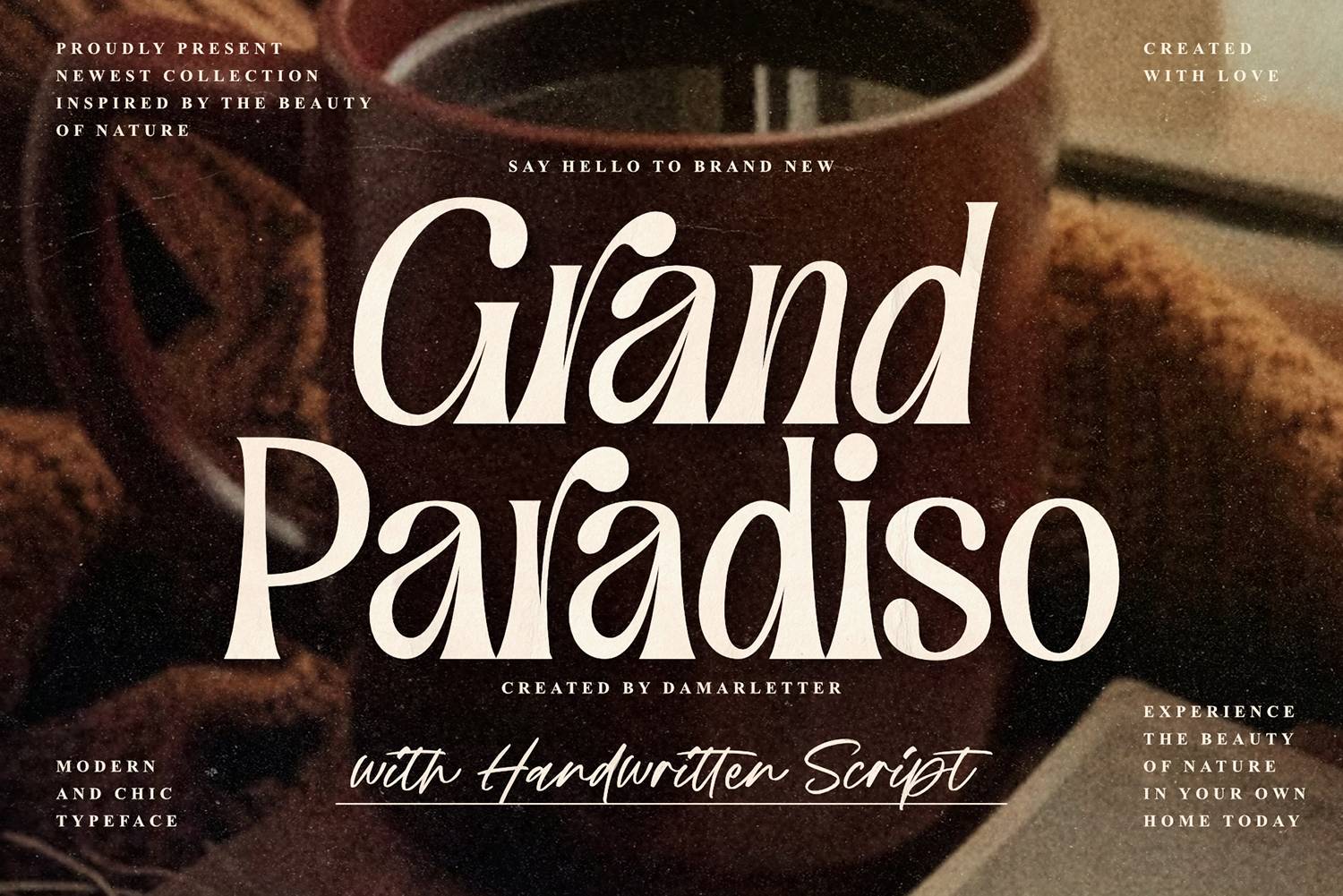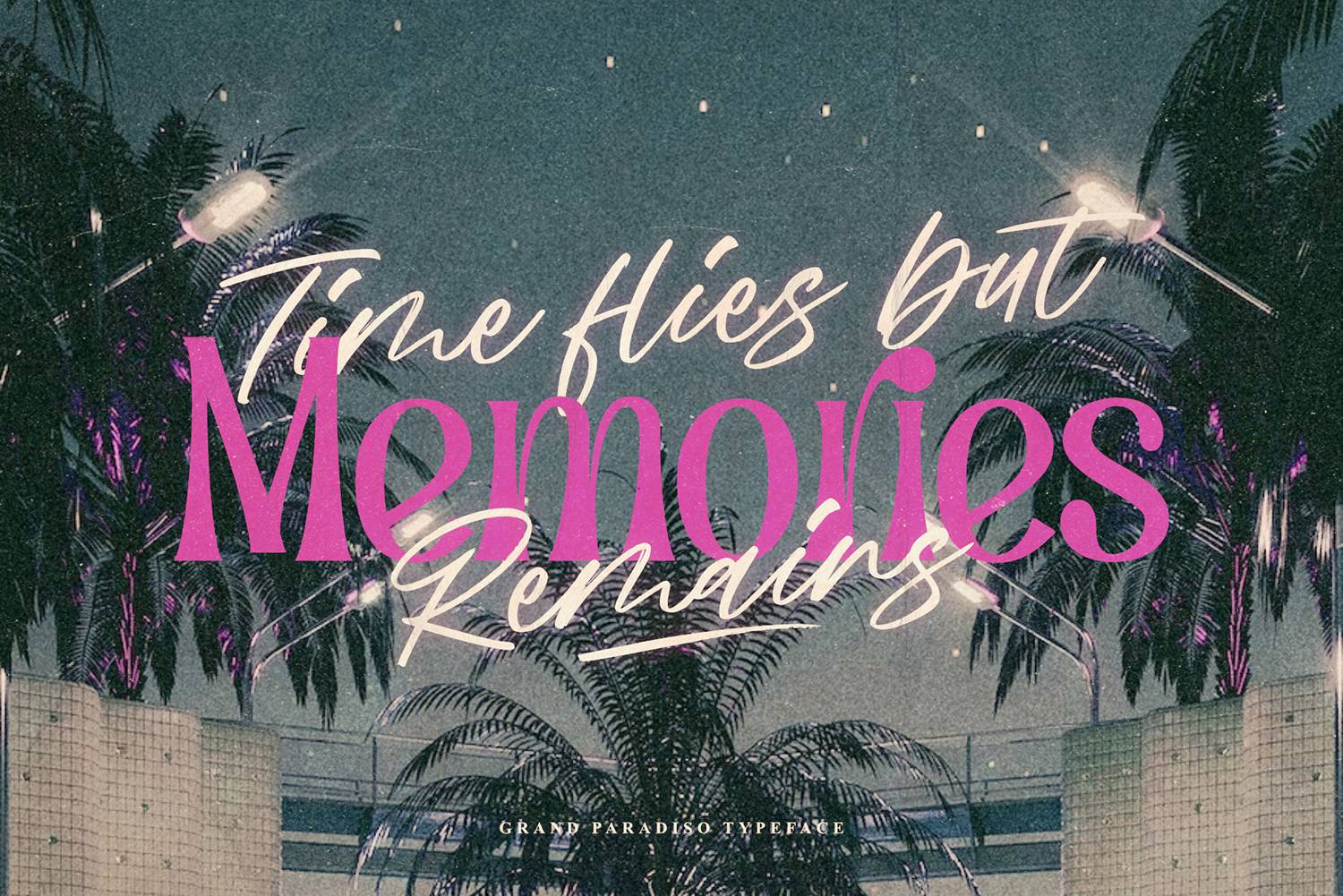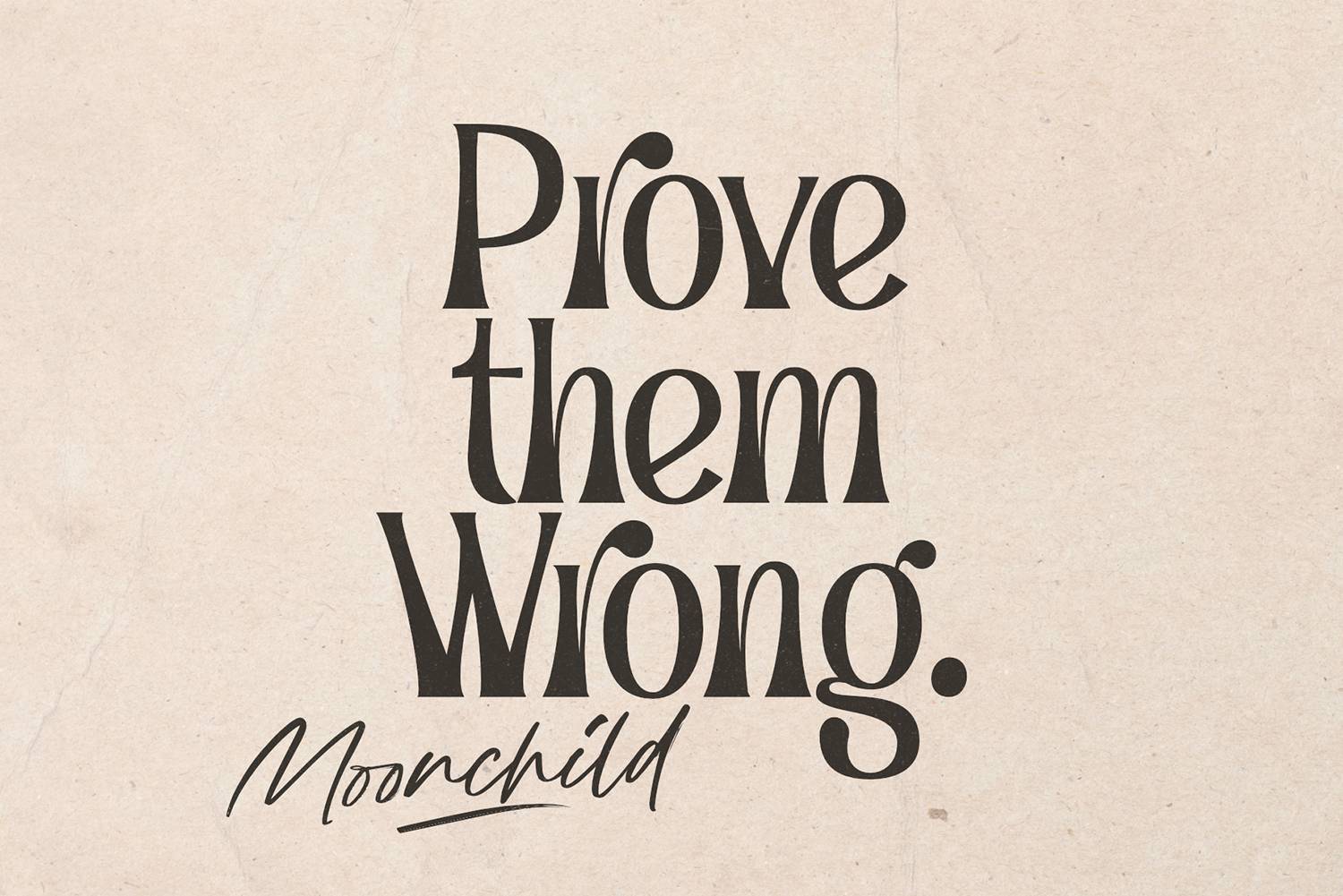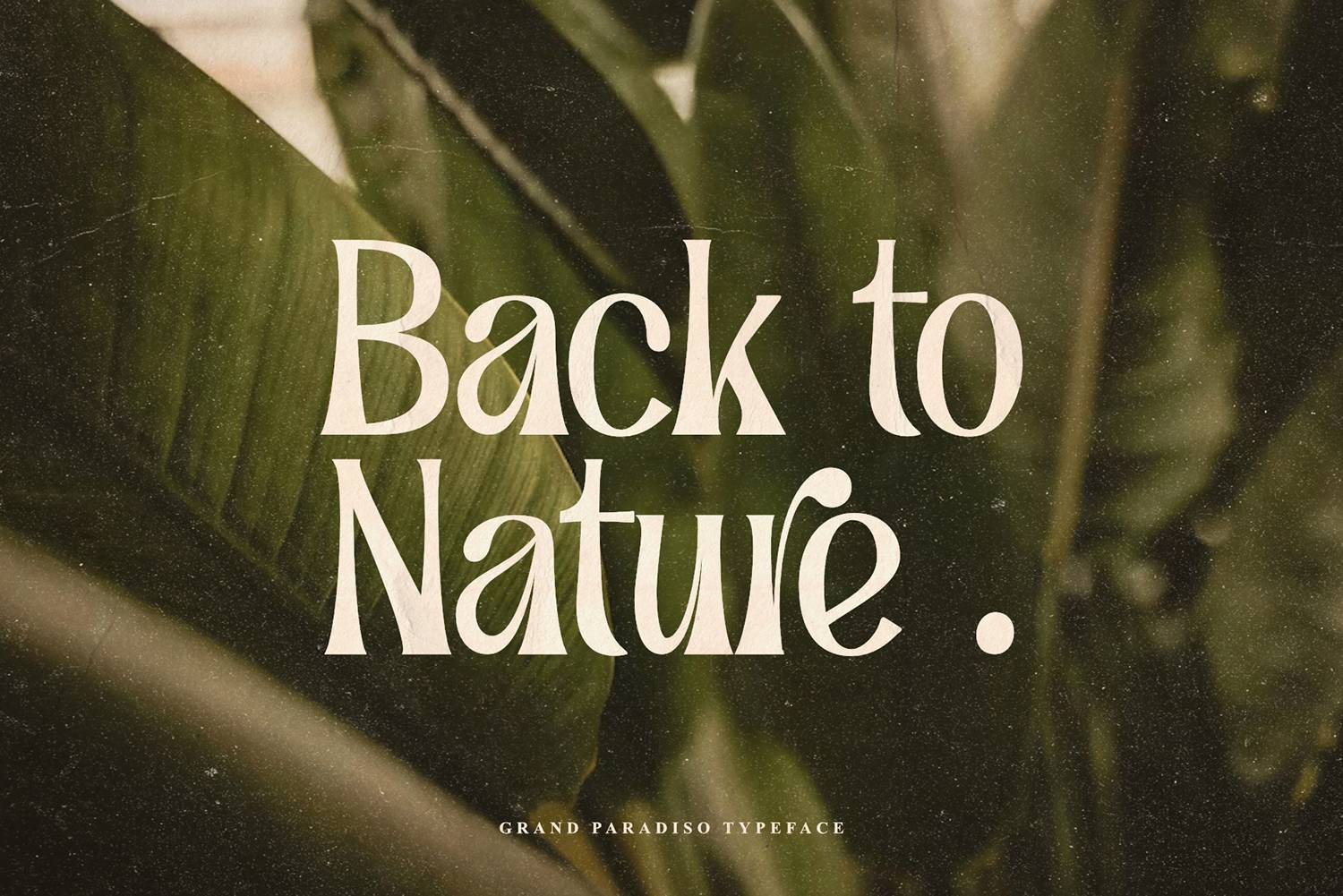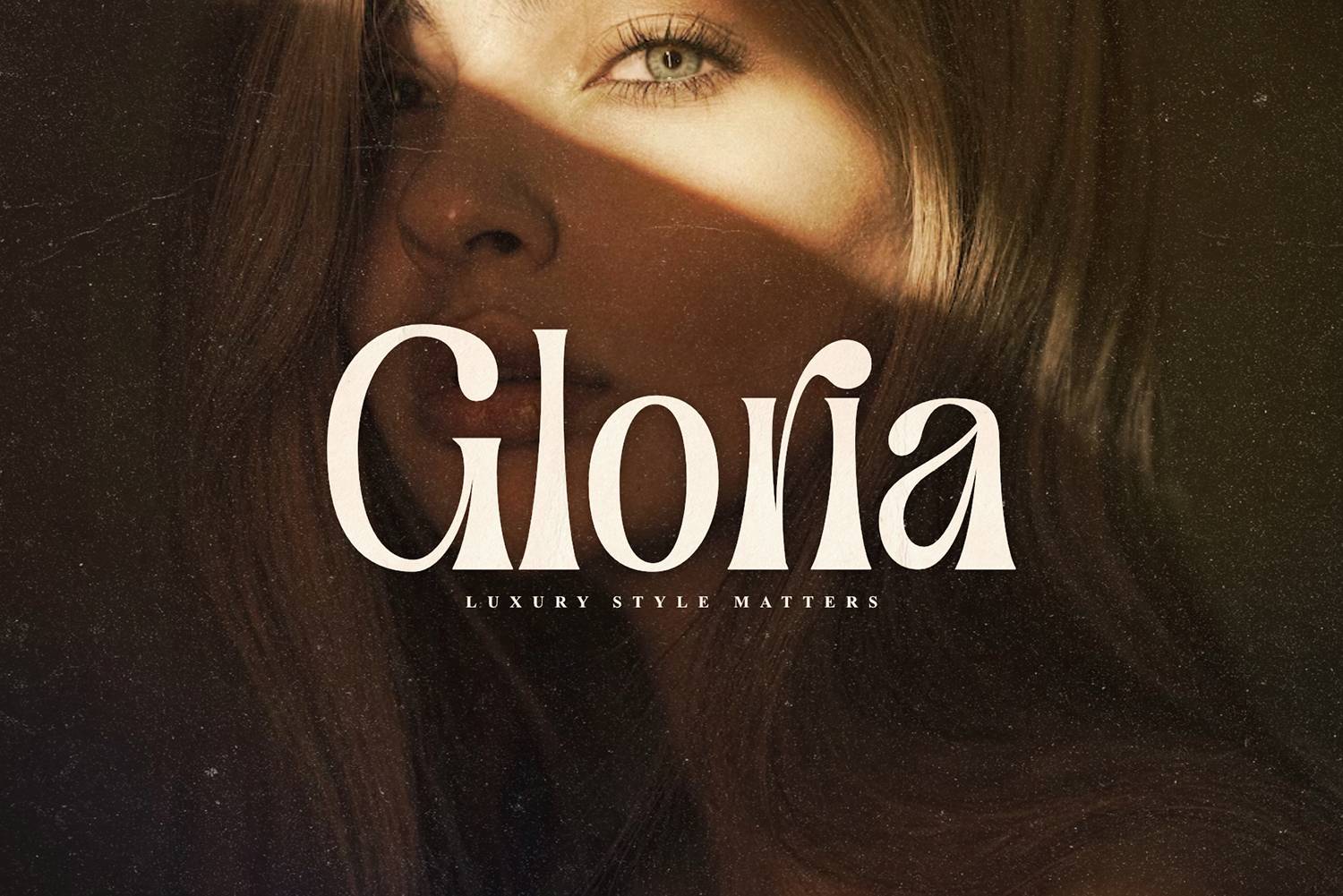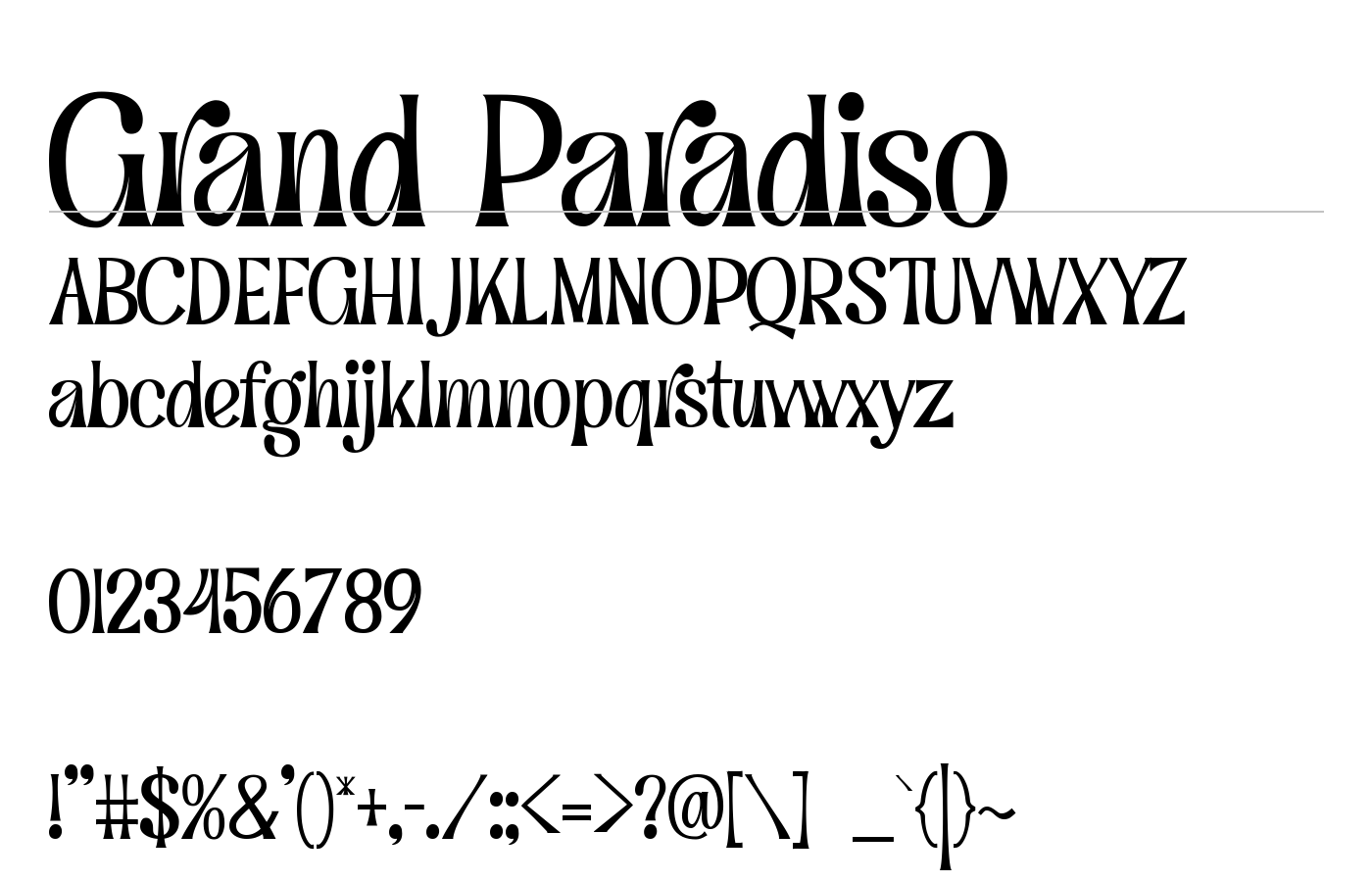
Grand Paradiso is a distinctive serif font with a tall, narrow structure and elegant, high-contrast strokes that give it a refined, sophisticated character. Its unique letterforms, such as the curved terminals and stylized details, make it ideal for luxury branding, fashion headlines, and editorial use where a sense of elegance and modernity is desired. This font works best in display sizes, adding a touch of class and personality to logos, posters, and upscale packaging.
Grand Paradiso Font
| Designer | Ardian Nuvianto |
| Trademark | Damarletter |